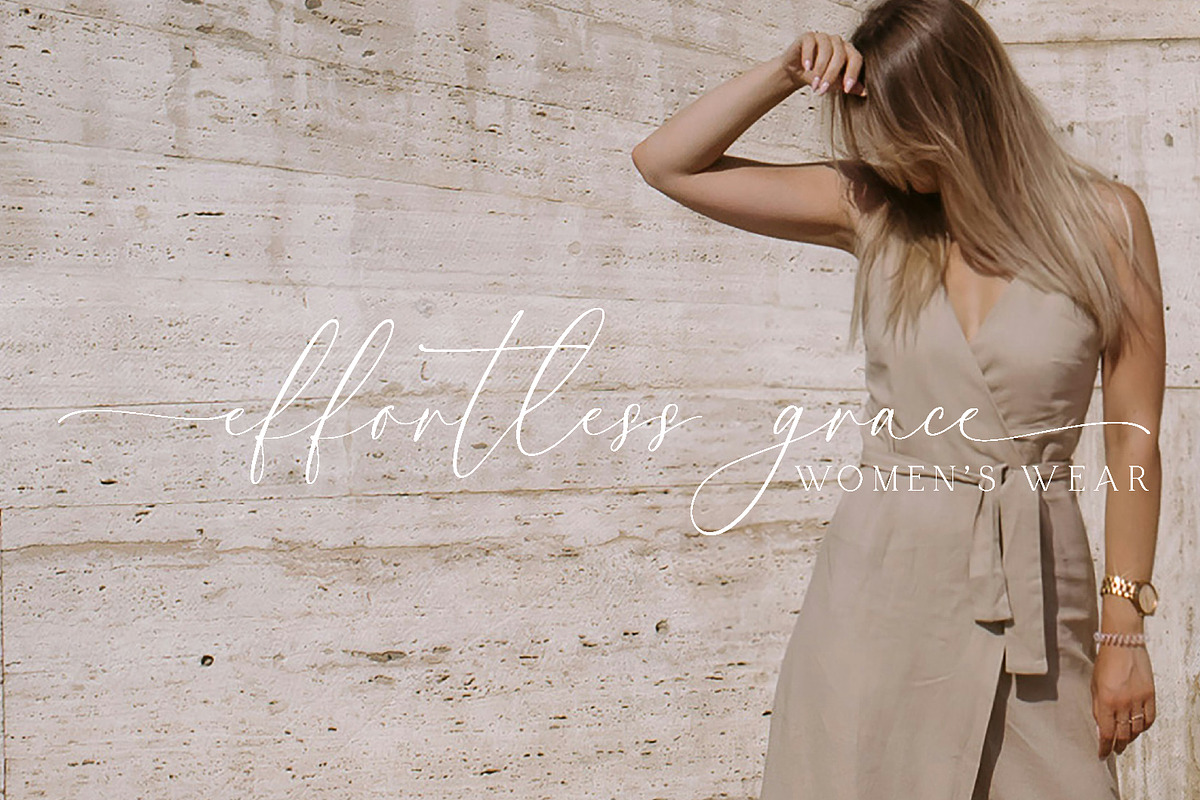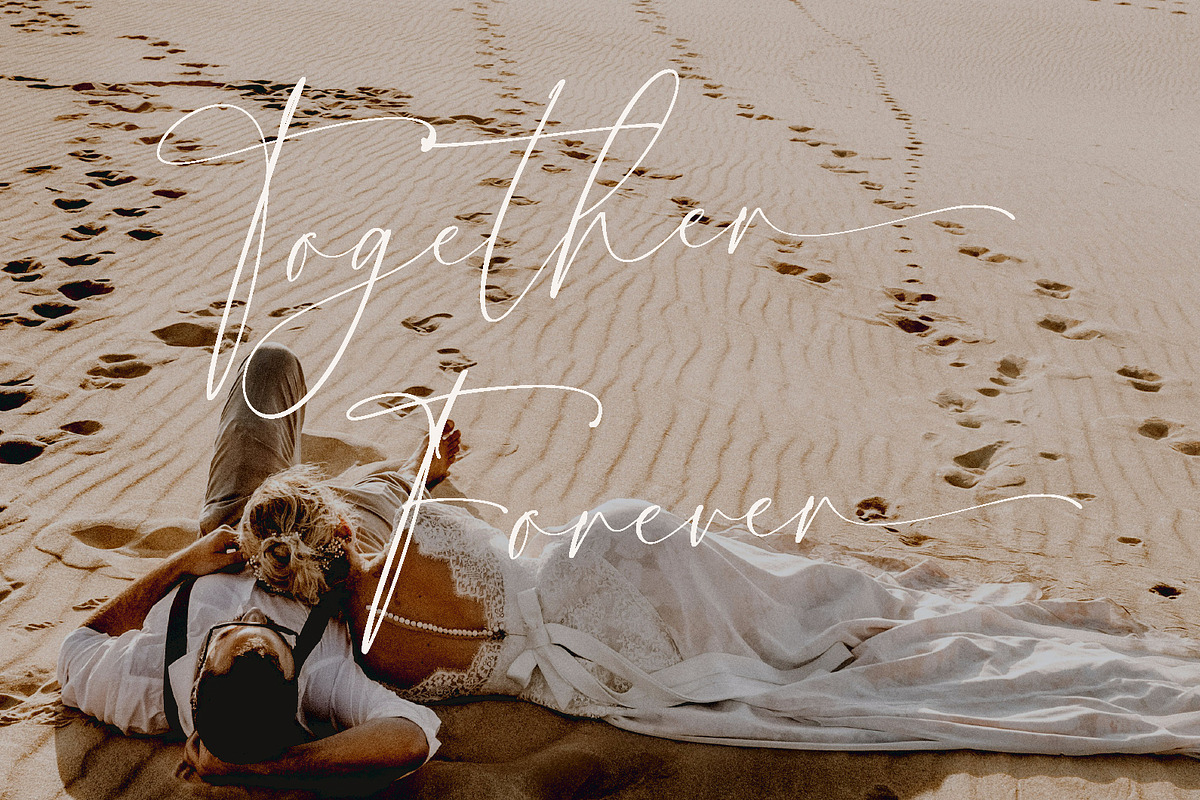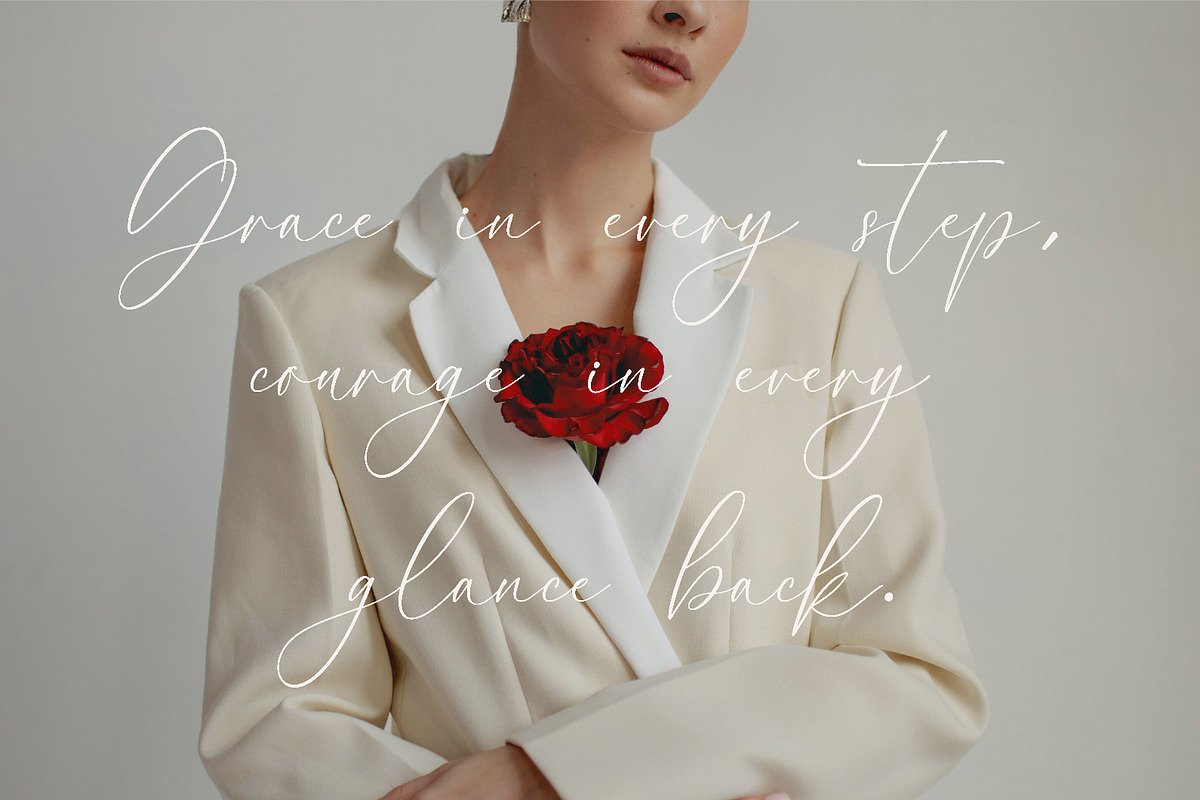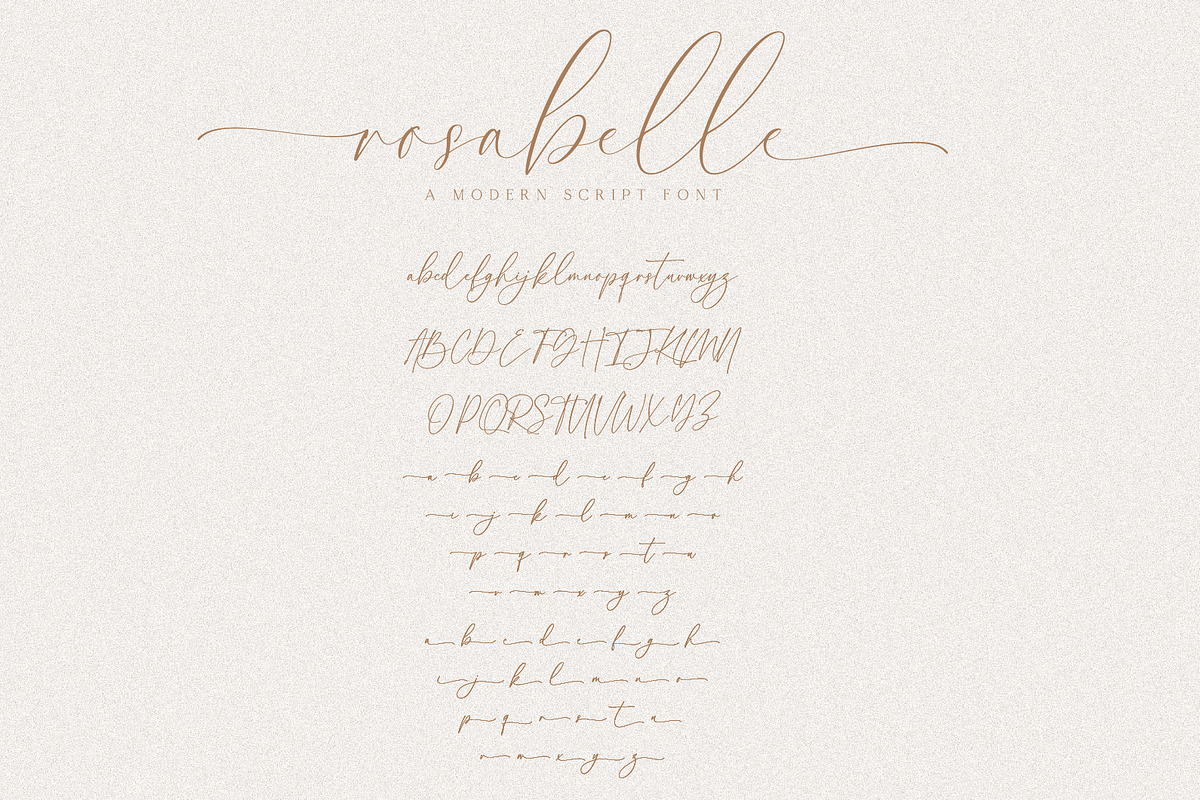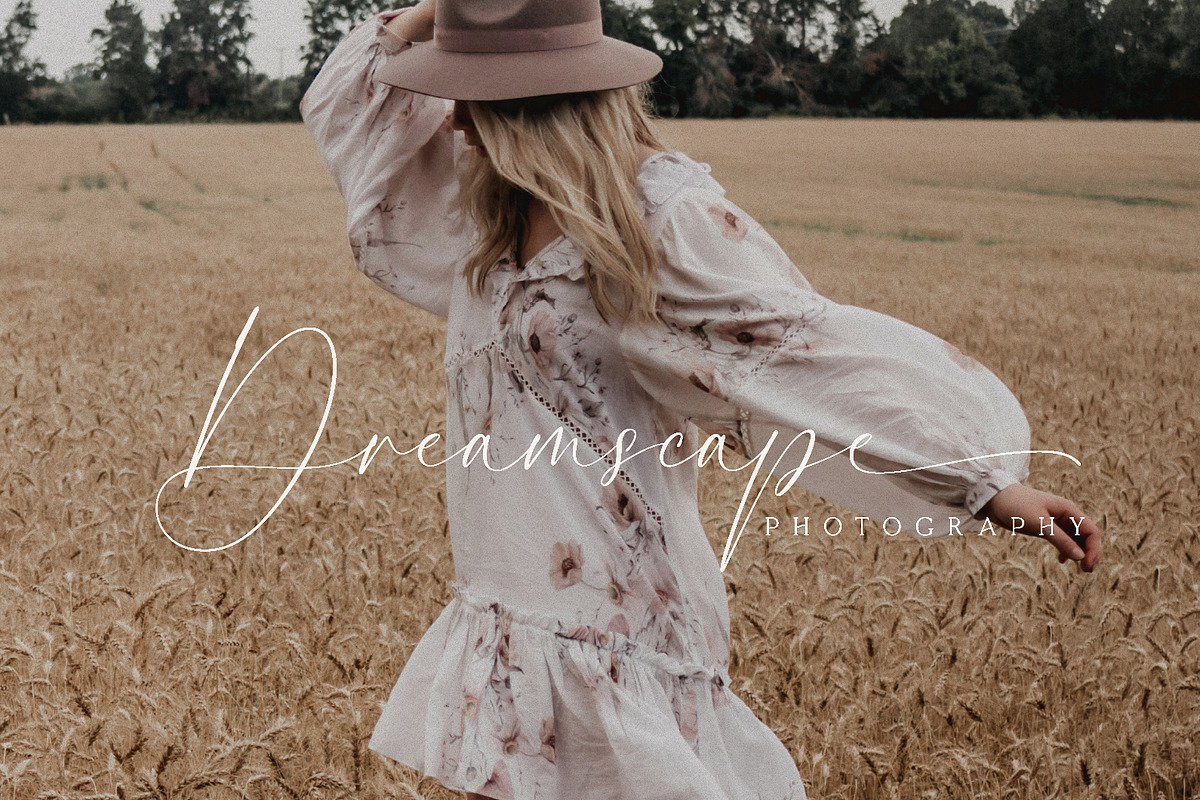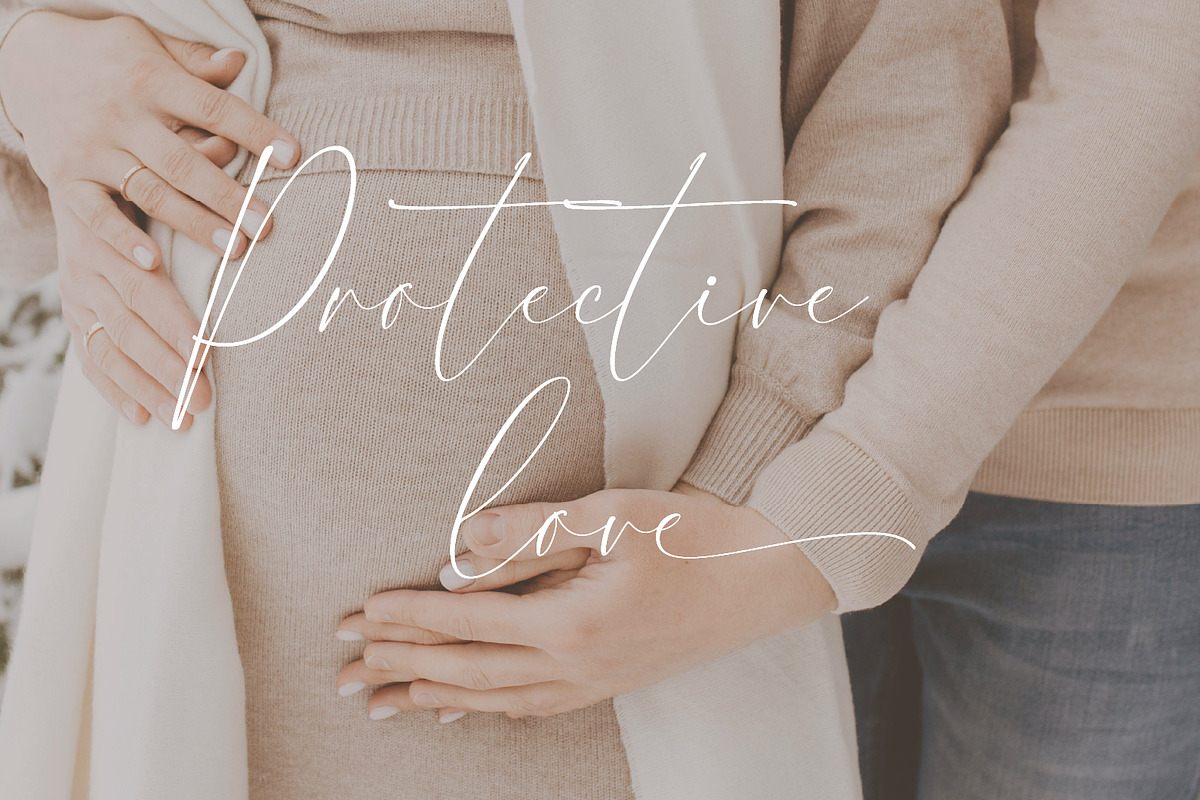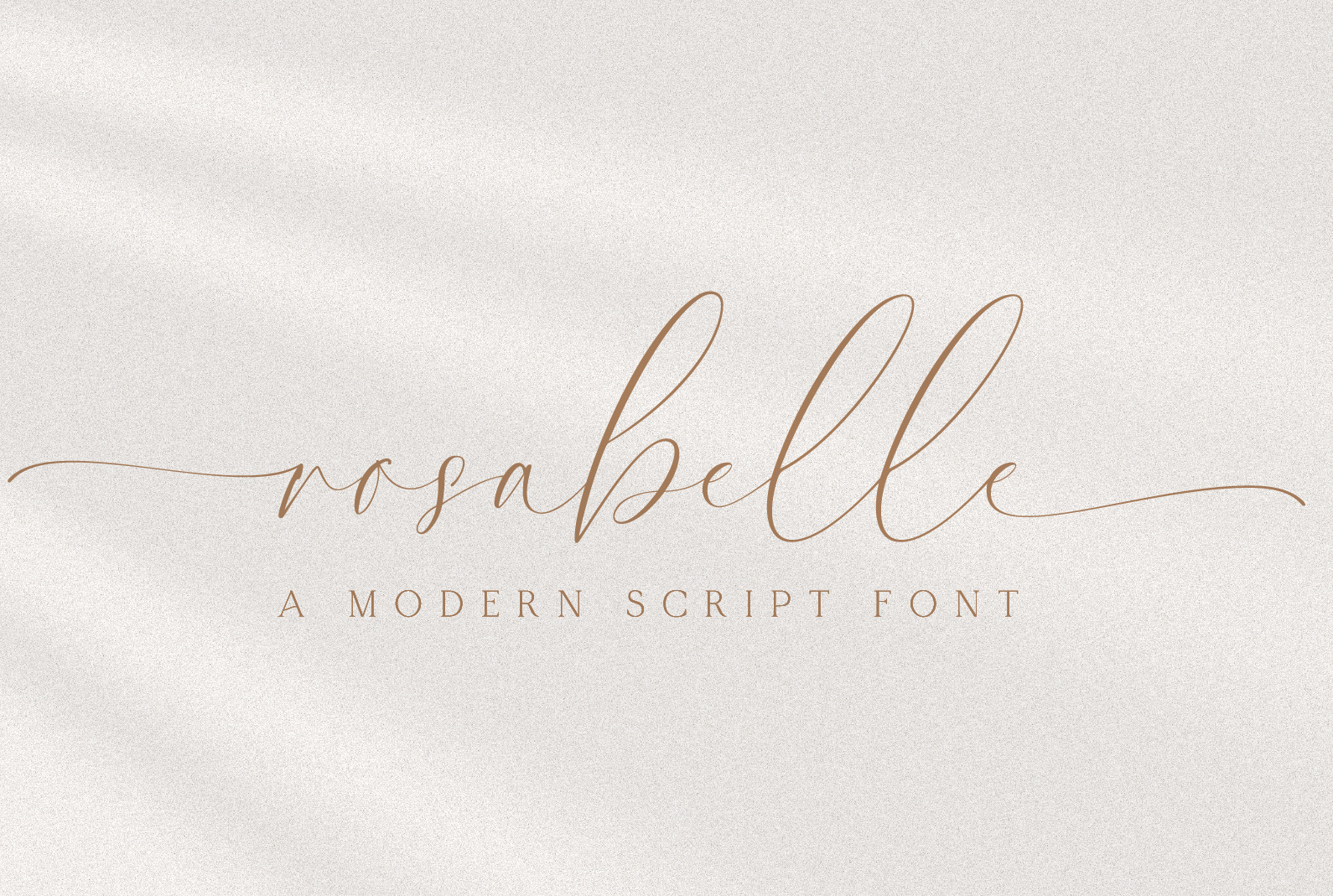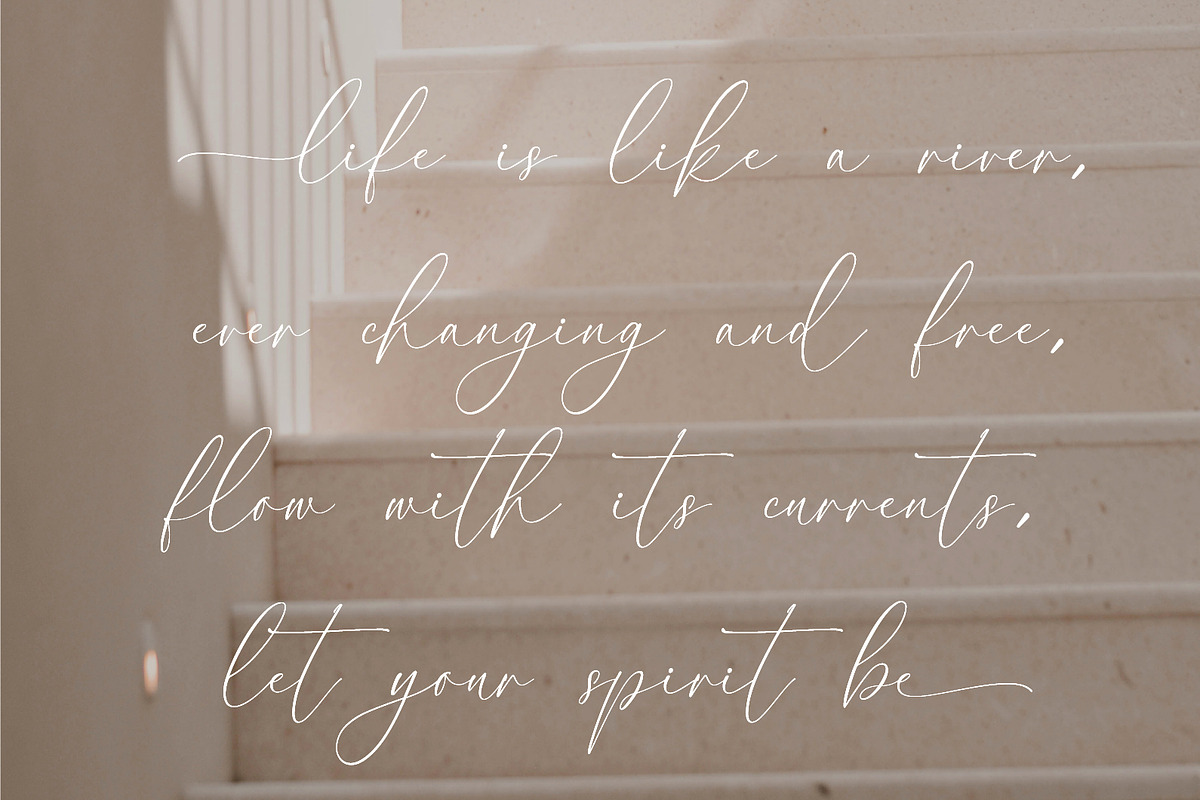
Rosabelle A Modern Script Font
Introducing Rosabelle Script, the new modern script font that blends clean, soft lines with delicate elegance. With its gentle curves and refined strokes, Rosabelle Script offers a touch of sophistication while remaining approachable and versatile.
This font includes multilingual support, making it perfect for a global audience. Ideal for branding, headlines, and projects that demand a refined yet contemporary look, Rosabelle Script brings a fresh, graceful touch to your designs. Let your words shine with the understated charm of Rosabelle Script.